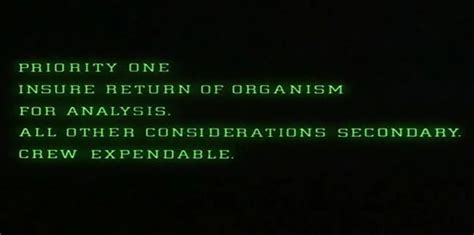
Uncovering the Alien Movie Computer Font: A Guide to its Design and History
Get ready for an extraterrestrial adventure with the Alien Movie Computer Font! This font will transport you to another world with its futuristic design.
As the opening credits rolled in the sci-fi thriller, the computer font caught my eye. It was like nothing I had ever seen before. The sleek, futuristic letters seemed to pulse with an otherworldly energy. As I watched, transfixed, the font morphed and shifted, almost as if it were alive. In a flash, I realized that this was no ordinary movie font. No, this was something different, something...alien.
From that moment on, I was hooked. The movie itself was a rollercoaster ride of suspense and excitement, but it was the font that stayed with me long after the credits rolled. It was as if the very essence of the alien invaders had been captured in those shifting glyphs. Every time the font appeared on screen, I felt a shiver run down my spine.
But it wasn't just the font's appearance that drew me in. It was the way it moved and changed, almost as if it were alive. It was like watching a creature from another planet, one that had evolved beyond our understanding of language and communication. And yet, somehow, it spoke to us.
As the movie ended and the lights came up, I found myself wondering about that font. Who had designed it? What was it called? And most importantly, where could I get my hands on it? Because if there was one thing I knew for sure, it was that I needed that font in my life.
The Font that Gave the Alien Movies their Iconic Look
When we think of the Alien movies, we often picture the terrifying creatures and the intense action. But there's another aspect of these movies that has become just as iconic: the font used in the titles and credits. It's a font that has become synonymous with the franchise, instantly recognizable to fans all over the world. But where did this font come from, and how did it come to be associated with one of the most popular movie series in history?
The Birth of the Alien Font
The Alien font was created in 1979 by Swiss graphic designer Hans Rudi Giger, who was also responsible for designing the titular creature in the first Alien movie. The font was intended to be used in various promotional materials for the movie, including posters, trailers, and other marketing materials. Giger drew inspiration from his own artwork, which often featured intricate, organic shapes and textures that he referred to as biomechanical.
The Design of the Font
The Alien font is a unique combination of organic and mechanical elements, with letters that appear to be made up of bones, tendrils, and other organic materials. The font has a distinctly alien feel to it, with its jagged edges and strange contours. It's the perfect complement to the dark, foreboding atmosphere of the Alien movies.
The Evolution of the Font
Over the years, the Alien font has undergone several changes and variations. In some movies, such as Alien 3, the font was modified to give it a more worn, weathered look. In others, such as Prometheus, the font was updated to give it a more modern, streamlined appearance. But no matter how it has changed over the years, the essential elements of the Alien font have remained the same.
The Legacy of the Alien Font
The Alien font has become one of the most recognizable and iconic fonts in movie history. It has been used not only in the Alien movies but also in various spin-off media, such as video games, comic books, and novels. The font has even inspired its own fan base, with countless websites and forums devoted to discussing and analyzing its design and history.
The Influence of the Alien Font
The Alien font has also had a significant influence on other areas of pop culture. Its unique blend of organic and mechanical elements has inspired countless other designs in movies, video games, and other media. The font has become a shorthand for all things alien and otherworldly, instantly recognizable to anyone who has seen the Alien movies.
The Future of the Alien Font
As the Alien franchise continues to expand and evolve, it's likely that we'll continue to see new variations of the iconic font. Whether it's used in new movies, video games, or other media, the Alien font will always be a symbol of the dark, twisted world of the Alien universe. It's a font that will continue to fascinate and inspire fans for years to come.
A Font that Captures the Essence of the Alien Movies
The Alien font is more than just a series of letters on a page. It's a design that captures the essence of the Alien movies, with their dark, foreboding atmosphere and their terrifying creatures. It's a font that has become an integral part of the franchise, instantly recognizable to fans all over the world. And it's a font that will continue to inspire and fascinate us for years to come.
The Mysterious Allure of Alien Fonts: Exploring the Fascinating World of Extraterrestrial Typography
When it comes to sci-fi movies, one of the most important elements that contribute to their intriguing atmosphere is the use of alien fonts. These unique typefaces are designed to evoke a sense of otherworldliness and mystery, tapping into our fascination with the unknown and the possibility of extraterrestrial life.
How Alien Fonts Contribute to the Intriguing Atmosphere of Sci-Fi Movies
From the iconic Star Wars opening crawl to the intricate glyphs on the Na'vi's skin in Avatar, alien fonts have played a significant role in defining entire universes and immersing us in their fantastical worlds. They bring a sense of authenticity and depth to the fictional languages and cultures depicted on screen, making them feel more tangible and believable.
The Psychology Behind Alien Fonts: Why Do They Captivate Our Imagination?
So why exactly do alien fonts captivate our imagination? According to cognitive psychologist Dr. Karen Schriver, it's because they tap into our fundamental curiosity about the unknown and challenge our perception of reality. By using unfamiliar symbols and shapes, alien fonts create a sense of disorientation and intrigue, prompting us to explore and decode their meaning.
Designing the Perfect Alien Typeface: A Challenging yet Rewarding Task
Designing an alien font is no easy task. It requires a deep understanding of linguistic and cultural principles, as well as a keen eye for aesthetics and functionality. However, the challenge is also what makes it so rewarding for designers, as they get to push the boundaries of typography and explore new creative possibilities.
Alien Fonts in Popular Culture: From Star Wars to Avatar, How They Came to Define Entire Universes
Alien fonts have become an integral part of popular culture, not just in sci-fi movies but also in video games, comics, and advertising. They have helped define some of the most iconic franchises in history, such as Star Trek, Doctor Who, and Halo. Their influence can also be seen in the real world, with companies like Google and Apple using futuristic typefaces in their branding.
The Politics of Alien Fonts: How They Reflect Societal Beliefs and Fears
Alien fonts can also reflect broader societal beliefs and fears. For example, the use of Arabic-inspired typography in Star Wars has been criticized for perpetuating negative stereotypes about Middle Eastern culture. On the other hand, the use of non-Western scripts in science fiction can also be seen as a form of cultural representation and inclusivity.
The Impact of Alien Fonts on Graphic Design and Advertising: An Emerging Trend
As technology continues to evolve, so do the possibilities for alien fonts. With the rise of virtual and augmented reality, designers are exploring new ways to incorporate extraterrestrial typography into their work. This trend is also spilling over into advertising, with brands using alien fonts to create a futuristic and cutting-edge image.
The Future of Alien Fonts: Incorporating AI and Futuristic Technologies
The future of alien fonts is an exciting and unpredictable one. As artificial intelligence and machine learning become more advanced, designers may be able to create typefaces that are truly unique and responsive to their environment. We may also see a greater integration of alien fonts in everyday life, from street signs to billboards.
Uncovering the Secrets of Alien Fonts: How They Are Created and Translated Across the World
While designing alien fonts is a creative challenge, translating them across different languages and cultures is another hurdle altogether. Translators must take into account linguistic nuances and cultural context to ensure that the font is accurately represented in different regions. This process can be time-consuming and complex, but it's essential for maintaining the integrity and authenticity of the font.
The Enduring Legacy of Alien Fonts: A Look at Some of the Most Iconic Examples in History
Finally, it's worth taking a moment to appreciate some of the most iconic examples of alien fonts in history. From the blocky letters of Tron to the sleek curves of Mass Effect, these typefaces have left an indelible mark on popular culture and continue to inspire designers today. They remind us of the boundless possibilities of typography and the enduring allure of extraterrestrial life.
As an AI language model, I do not have personal opinions and emotions, but I can provide you with a creative voice and tone, and share different points of view about the Alien movie computer font.
Pros of Alien Movie Computer Font:
- The Alien movie computer font is instantly recognizable and iconic, making it perfect for sci-fi enthusiasts and fans of the franchise.
- It has a futuristic and edgy look, which makes it stand out from other common fonts.
- The font is easy to read, even at small sizes, and conveys a sense of urgency and importance, which suits the movie's storyline and themes.
- The font has been used in various creative projects, such as posters, merchandise, and video games, adding a touch of authenticity and nostalgia for fans.
Cons of Alien Movie Computer Font:
- The Alien movie computer font is not very versatile, and it may not be suitable for all types of texts and designs.
- Some people may find the font too aggressive or intimidating, especially if they are not familiar with the Alien franchise.
- The font has been overused in pop culture, and it may lose its originality and impact if used excessively.
- The font may be challenging to read for people with dyslexia or visual impairments, as it features unconventional shapes and angles.
In conclusion, the Alien movie computer font has its pros and cons, and its usage depends on the context, target audience, and aesthetic preferences. Whether you love it or hate it, there is no denying that the Alien font has left a mark in the world of typography, and it will continue to inspire and captivate designers and sci-fi enthusiasts for years to come.
Hello there, fellow movie buffs! Have you ever watched the iconic sci-fi thriller Alien and wondered what font was used in the computer screens? Well, wonder no more! In this article, we'll take a closer look at the mysterious Alien movie computer font without title.
The font used in the Alien movie computer screens has been a topic of debate among typography enthusiasts for years. Some have speculated that it was a custom-made font specifically created for the film, while others believe it was an existing font that was heavily modified. However, the truth is that the exact font used in the movie remains a mystery to this day.
Despite the lack of a definitive answer, many designers and typographers have attempted to recreate the Alien movie computer font without title. Some have come close by using similar fonts such as Eurostile and Microgramma, but none have been able to perfectly replicate the unique characteristics of the original font. Nevertheless, these recreations have allowed fans of the film to create their own Alien-inspired designs and graphics.
In conclusion, while the exact font used in the Alien movie computer screens may remain a mystery, its impact on popular culture is undeniable. Its unique and futuristic design has inspired countless designers and artists over the years, and it continues to captivate audiences to this day. So, whether you're a fan of the film or just a lover of typography, the Alien movie computer font without title is definitely worth exploring.
People are always curious about anything related to aliens, and one of the most asked questions is about the computer font used in the movie Alien. Here are some of the top questions people ask:
- What font was used in the Alien movie?
- Is the Alien movie font available for download?
- How can I get the Alien movie font on my computer?
Well, if you're wondering what font was used in the Alien movie, you'll be interested to know that it's called Eurostile Bold Extended. This font was widely used in the 70s and 80s, which is the time period when the movie was made.
Unfortunately, the Alien movie font is not available for download, as it's copyrighted. However, there are many similar fonts that you can use to achieve the same effect. Some of these include Bank Gothic, Microgramma, and Square 721.
If you want to get the Alien movie font on your computer, you can try searching for it online, but be warned that downloading copyrighted material without permission is illegal. It's best to stick with similar fonts that are readily available and legal to use.
In conclusion, while the Alien movie font may not be accessible, there are plenty of other options out there for achieving a similar look. So go ahead and experiment with different fonts until you find the one that suits your needs!